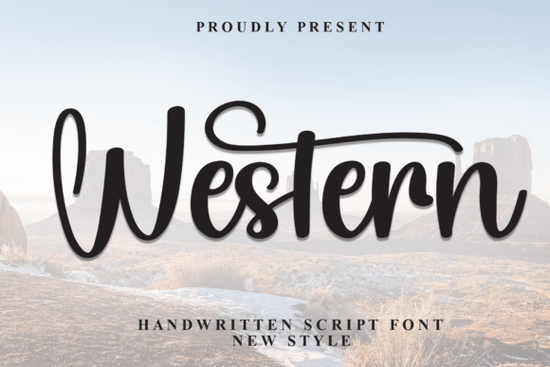
If you're looking for a script font that blends elegance with a relaxed, hand-lettered feel, Western is worth a closer look. Designed with soft curves and fluid strokes, it captures a modern country vibe without feeling overly rustic or dated. Whether you’re creating wedding invitations, boutique packaging, or inspirational wall art, Western adds warmth and personality while maintaining readability.
What makes Western stand out among script fonts?
Many script fonts lean heavily into either formal calligraphy or casual handwriting but Western strikes a thoughtful balance. Its letterforms flow naturally, mimicking the rhythm of real pen-on-paper writing, yet they’re refined enough for professional use. The subtle variations in stroke width give it dimension, and the open counters help keep words legible even at smaller sizes.
This makes it especially useful for designers who need versatility: you can pair it with clean sans-serifs for contrast or layer it over textured backgrounds without losing clarity. Unlike some overly ornate scripts that become hard to read in longer phrases, Western stays approachable.
Where does Western work best?
Thanks to its gentle sophistication, Western shines in projects that call for a personal, artisanal touch:
- Wedding stationery – from save-the-dates to place cards
- Small business branding – think coffee shops, florists, or handmade soap labels
- Quote graphics for social media or printable wall art
- Rustic signage or chalkboard-style menu boards
- Print-on-demand products like mugs, tote bags, or greeting cards
It’s not ideal for body text or dense paragraphs, but as a headline or accent font, it draws attention without overwhelming the design.
How does it compare to other popular script fonts?
If you’ve used Disney-inspired script fonts, you know they often carry playful, bouncy energy great for kids’ themes but less suited for elegant occasions. Western, by contrast, offers maturity and grace without stiffness.
Compared to Brasky, which features bold, dramatic swashes, Western feels more understated and versatile for everyday creative work. And while Cursive Delight leans into vintage charm, Western keeps one foot firmly in contemporary aesthetics.
For those who love delicate, romantic scripts, White Heart might come to mind but it’s more whimsical. Western grounds its beauty in simplicity. Similarly, if you’ve explored bundles like Dream Big, you’ll appreciate how Western holds its own as a standalone choice when you don’t need dozens of alternatives.
Tips for using Western effectively
To get the most out of this font, consider these practical suggestions:
- Avoid all caps. Like most scripts, Western is designed for lowercase or title-case usage. Uppercase letters can break the natural flow.
- Use generous spacing. Slightly increased letter-spacing (tracking) helps highlight its graceful connections.
- Pair thoughtfully. Combine it with neutral, geometric sans-serifs (like Montserrat or Lato) to let the script breathe.
- Test on mockups. If you’re designing for print-on-demand, preview how it looks on actual products especially textured surfaces like kraft paper or canvas.
Also, remember that script fonts like Western often include alternate characters or ligatures. Check your software’s OpenType features to access stylistic sets that can add extra flair to specific letters or word combinations.
Is Western right for your next project?
If your goal is to convey warmth, authenticity, and quiet confidence without veering into cliché farmhouse or overly formal territory then yes. It’s a reliable go-to for creatives who want handwritten appeal with consistent quality.